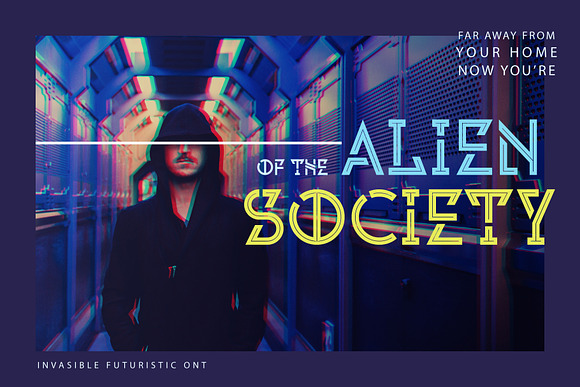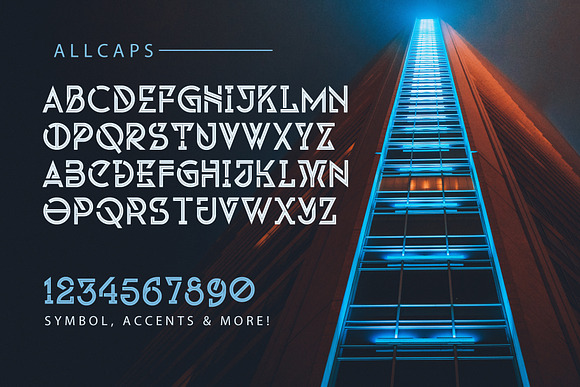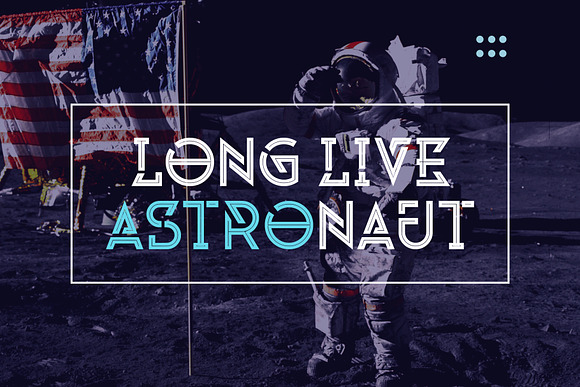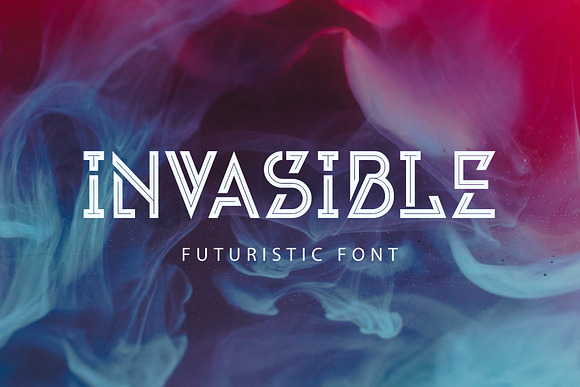
Invasible Font
Invasible Font is perfect for branding, website headings, poster designs, social media graphics, and editorial layouts. Its modern, strong, and versatile design makes it suitable for a wide range of creative projects.
What makes Invasible Font exciting is its bold, geometric letterforms that combine readability with a contemporary, impactful aesthetic. The font’s design ensures your text stands out with confidence and authority.
The Invasible Font family includes Regular, Bold, Italic, and Extended variations, providing designers flexibility to create cohesive and visually striking typographic compositions.